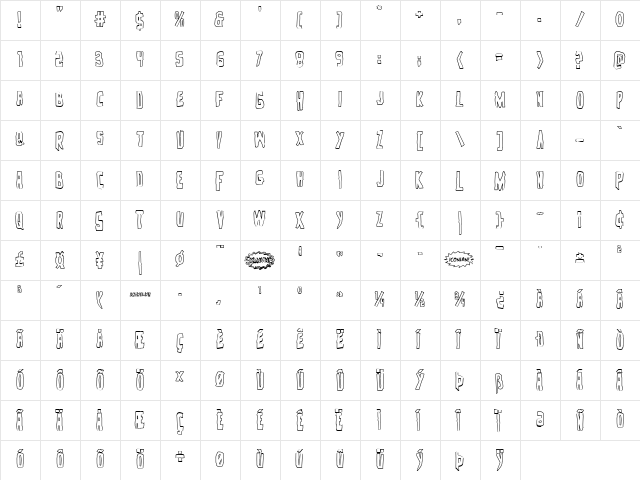
Zakenstein Outline Regular
Design Context for Zakenstein Outline Typeface
Zakenstein Outline brings ornamental detail and strong personality to headlines and identities, where visual impact matters more than quiet functionality.
Font Pairing: Pair with a clean neutral sans-serif for body copy to let Zakenstein Outline's character lead without overwhelming the composition.
Pro Tip: Treat Zakenstein Outline as the centrepiece of your typographic hierarchy. One strong heading set in a decorative face can carry an entire layout.